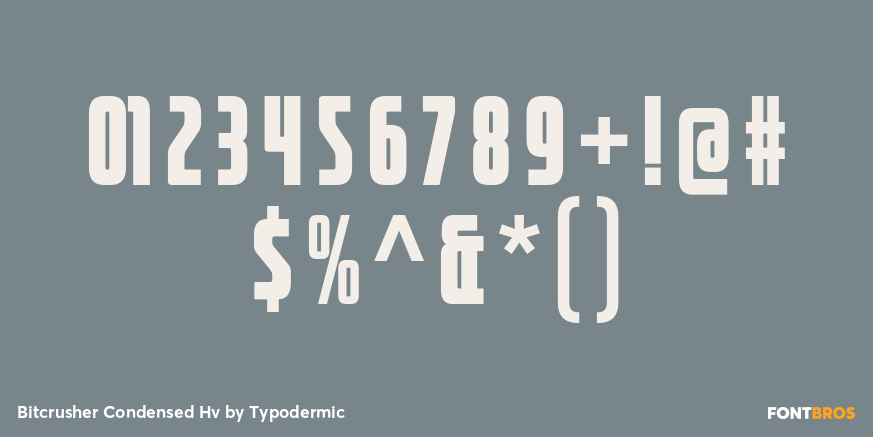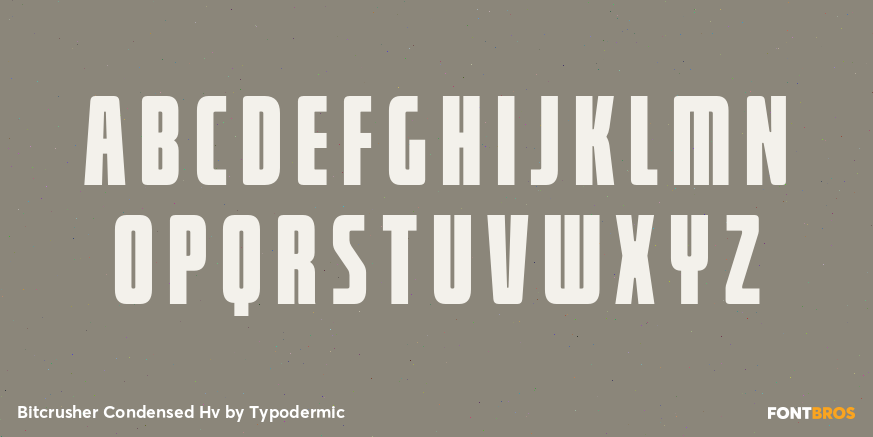
Bitcrusher Condensed Hv
The copy gets longer, but the container does not. A driver surname has to fit the same timing graphic as every other name. A product model suddenly acquires three more words. A vertical campaign needs to keep its headline large without covering the subject. Shrinking the type may make everything fit, but it also weakens the message. Bitcrusher offers another option: reduce the width instead of the height.
Even Bitcrusher’s roomiest styles are condensed. From Condensed through Compressed, Crammed and Crushed, the family provides increasingly severe levels of horizontal compression, with five weights at each width. Start comfortably; move narrower only when the content demands it.
That range is especially useful in live sports and broadcast graphics. Timing towers, race standings, player cards, qualifying results, statistics panels and lower thirds must accept names and data that cannot always be predicted when the template is built. Bitcrusher can keep a long athlete surname, constructor name or event title prominent instead of forcing the entire graphic to shrink. Its original automotive influences make motorsport, EV racing and vehicle launch graphics particularly natural settings.
The same problem appears in vertical video and responsive campaign systems. A headline designed for a wide display may have to survive a narrow phone screen, streaming promotion or social clip while sharing space with photography, captions and interface elements. Bitcrusher keeps the type large while reducing its horizontal footprint, and its progressively narrower widths can absorb long translations or awkward campaign variants without abandoning the visual system.
Hardware naming creates another useful role. AI workstations, network appliances, robotics controllers, battery systems, audio interfaces and industrial electronics often carry long product names and model designations across fixed-width chassis, faceplates and packaging. Bitcrusher can handle the prominent product family or model name while a quieter sans carries instructions and specifications.
Bitcrusher grew from automotive and consumer-electronics references, translated into a narrow stovepipe construction with tight corner curves. At the most extreme widths, characters such as M, W and w abandon diagonals that no longer function in the available space; the geometry changes to accommodate the constraint rather than simply squeezing conventional forms thinner.
For sports templates, vertical campaigns, equipment panels and technical product identities, Bitcrusher gives designers somewhere to go before “make it smaller” becomes the only answer.